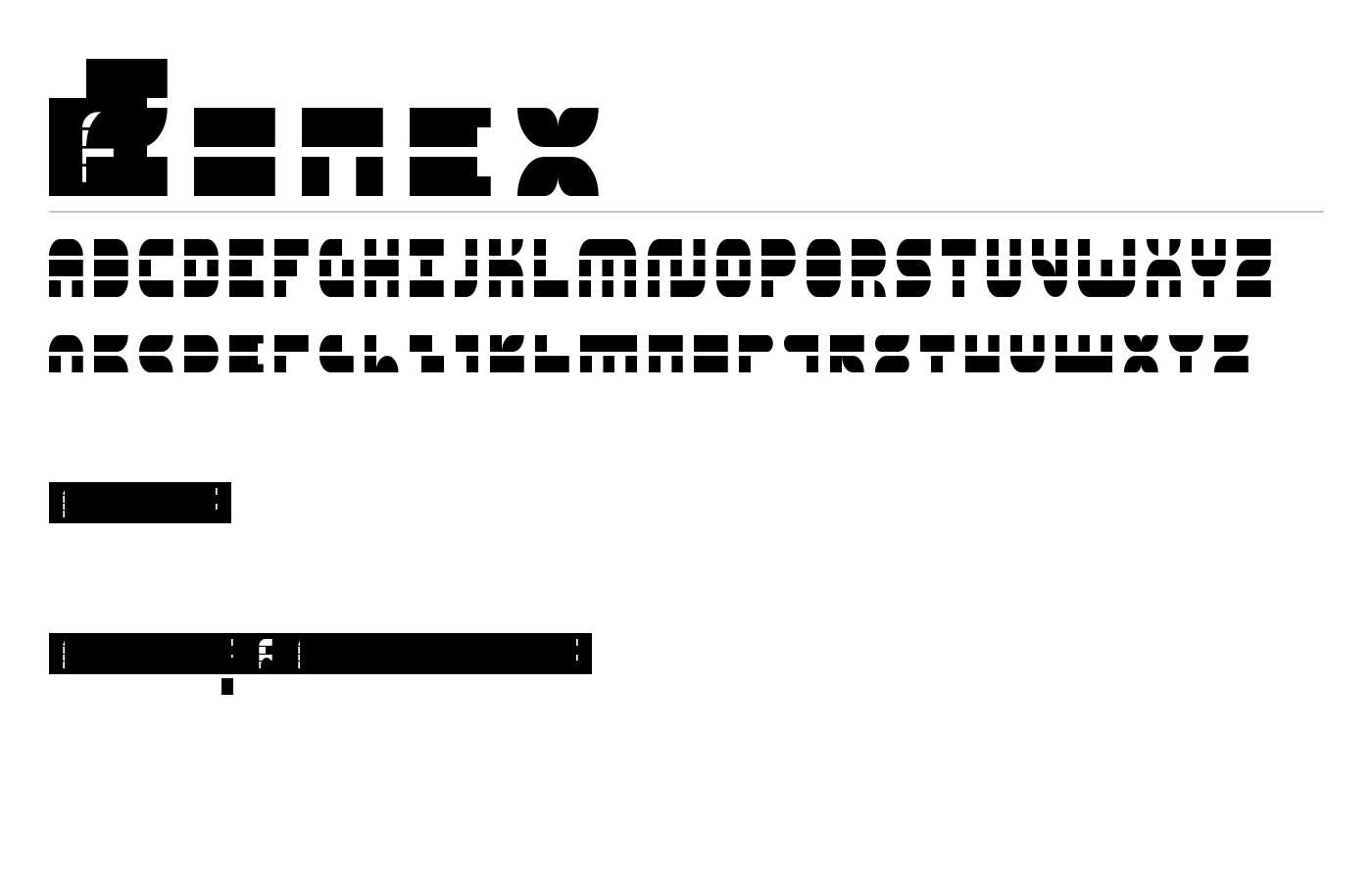
5Zonex is a bold, modern sans serif font characterized by its geometric, blocky letterforms with unique cut-out segments creating a striking stencil-like effect. Its condensed width and consistent stroke weight make it highly impactful and suitable for attention-grabbing headlines, logos, or branding projects that seek a futuristic and industrial vibe. This font works well in creative, urban, or tech-inspired contexts where a strong visual presence and modern edge are desired.
About 5Zonex Font